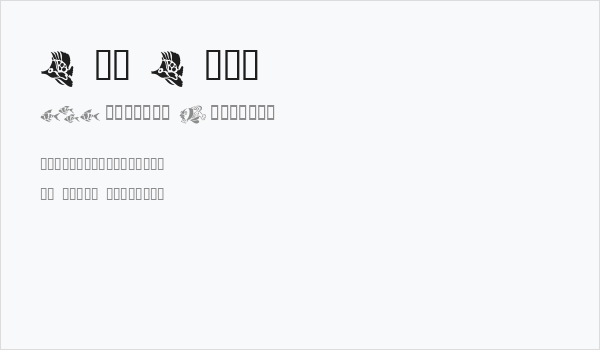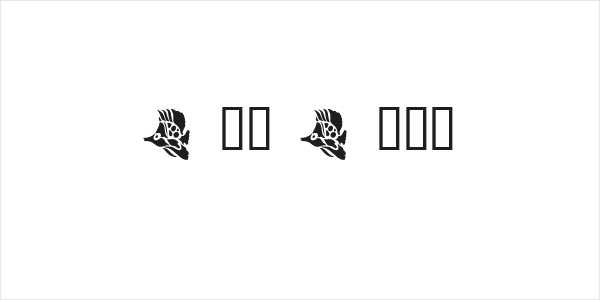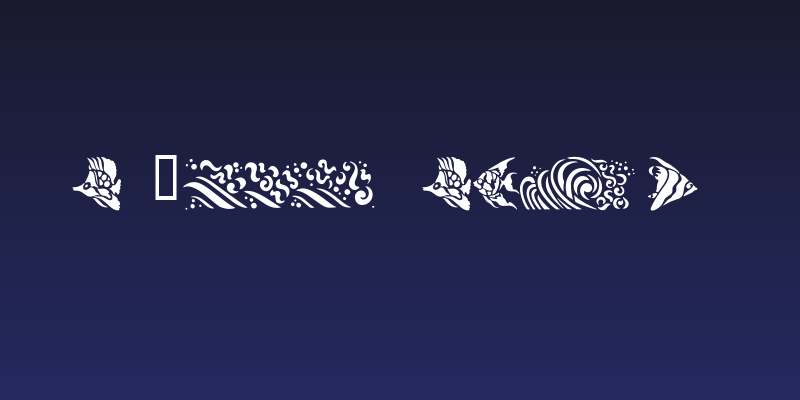
Fun Fish Font
This is a decorative font featuring intricate designs inspired by aquatic themes. Each character is composed of elements like fish, waves, and shells, creating a whimsical and playful appearance. The font is highly stylized, with each letter and symbol crafted to resemble underwater scenes. The detailed illustrations within each character make it suitable for creative and artistic projects where a unique and eye-catching typeface is desired. The font's elaborate design may limit its readability at smaller sizes, but it excels in making bold visual statements.
| Proposed Projects | Ideal for ocean-themed event posters, children's book covers, creative branding for aquariums, or any project needing a playful and artistic touch. |